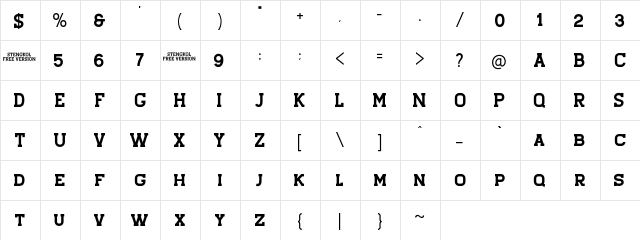
Stengkol 01 Regular
| Foundry | Lukman Hidayat "Viaction Type Co" |
| Designer | Lukman Hidayat "Viaction Type Co" |
Design Context for Stengkol 01 Typeface
Stengkol 01 offers clean, dependable letterforms without strong stylistic allegiance, making it a practical choice for designers who need flexibility.